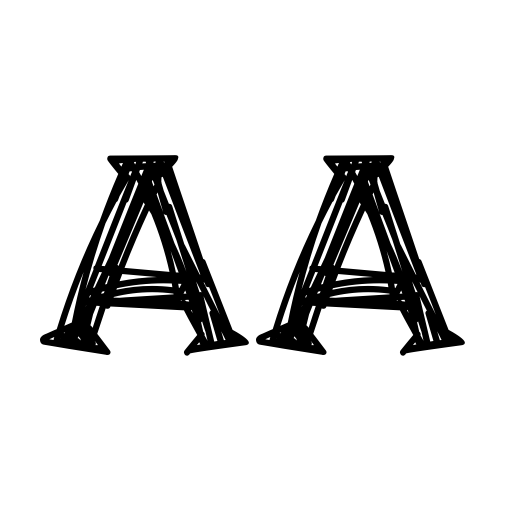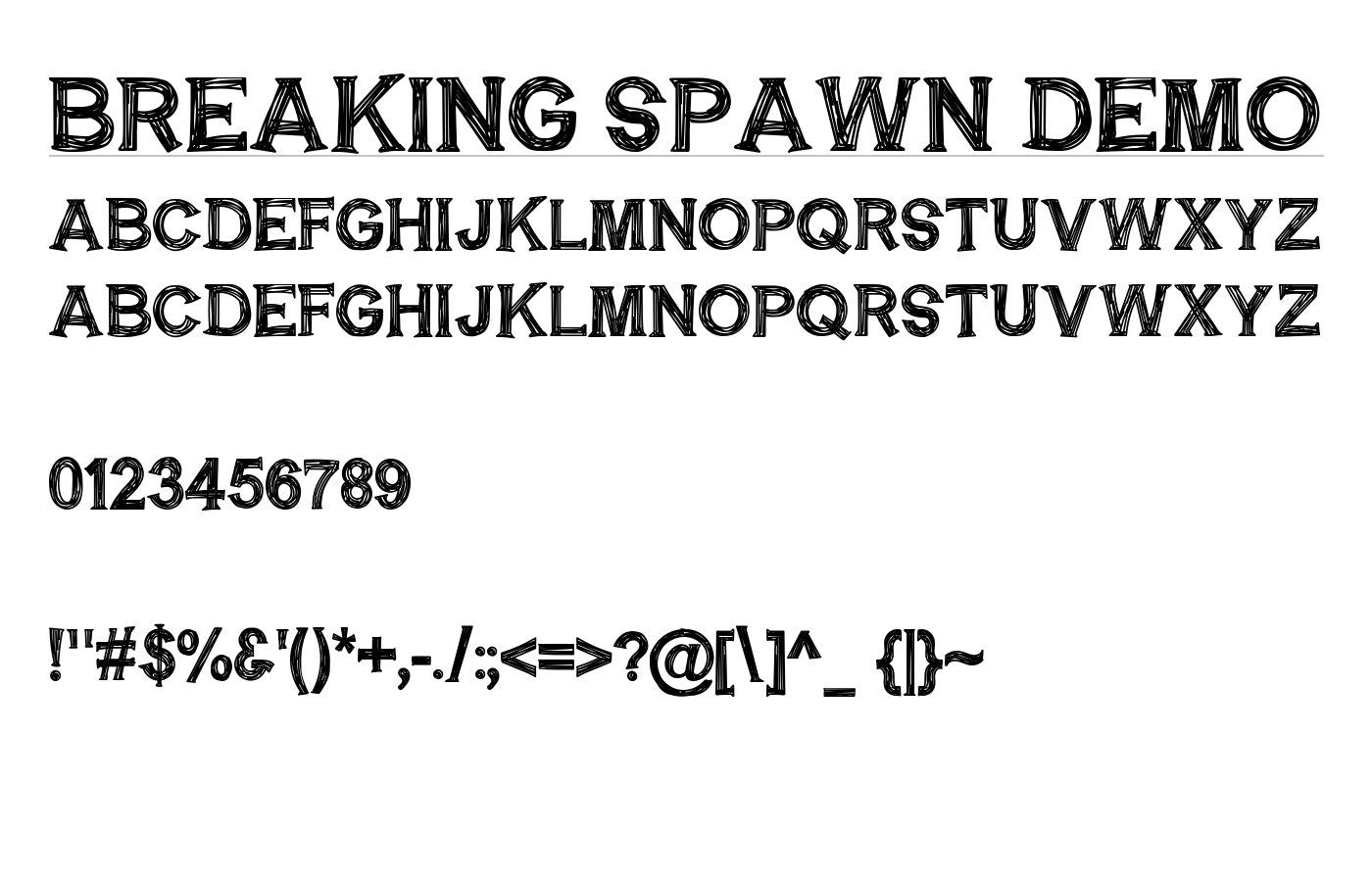
Breaking Spawn Demo is a bold, serif display font with a hand-drawn, textured look that adds a lively and artistic touch to its letters. Its uppercase characters have a slightly condensed width with rough, sketch-like strokes that create a unique, dynamic feel perfect for creative, edgy, or informal branding and headlines. This font is ideal for designs needing a strong visual impact with a playful yet confident personality.
BREAKING SPAWN DEMO Font
About BREAKING SPAWN DEMO Font
| Font family | BREAKING SPAWN DEMO Font |
| Designer | Fachranheit |